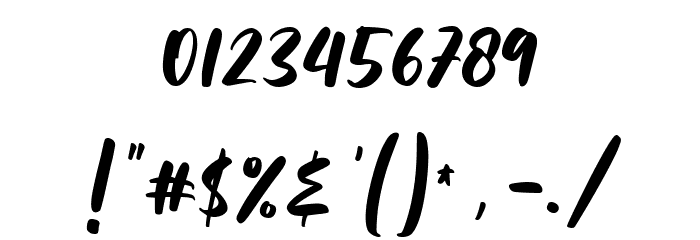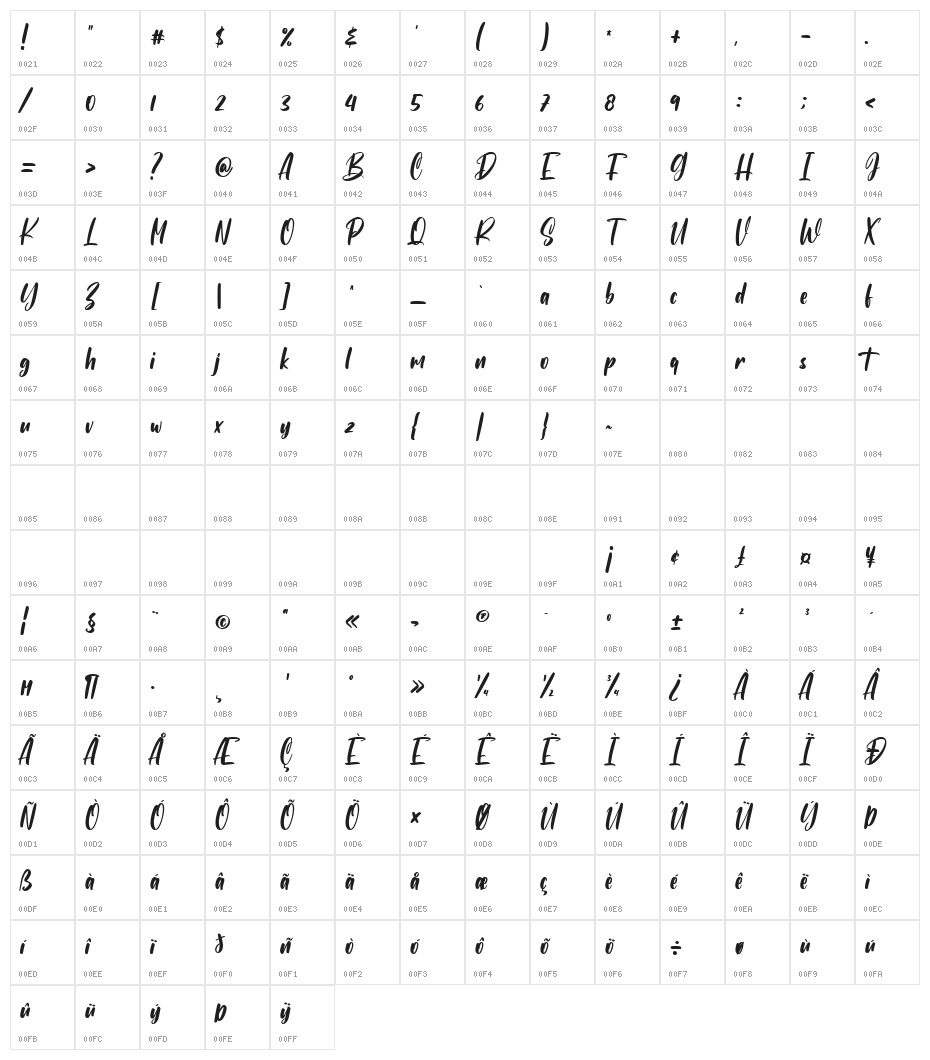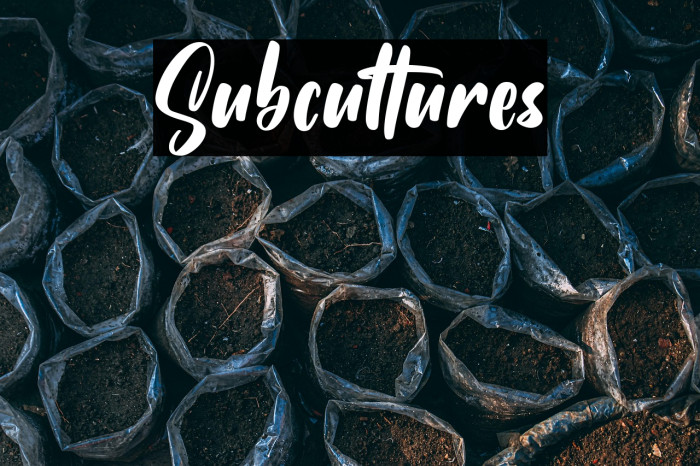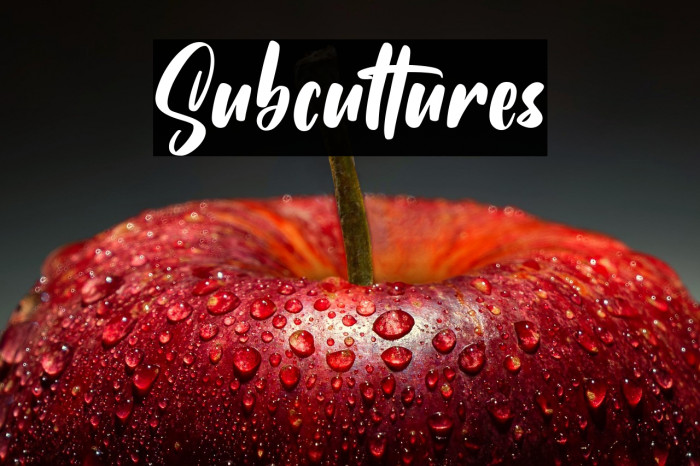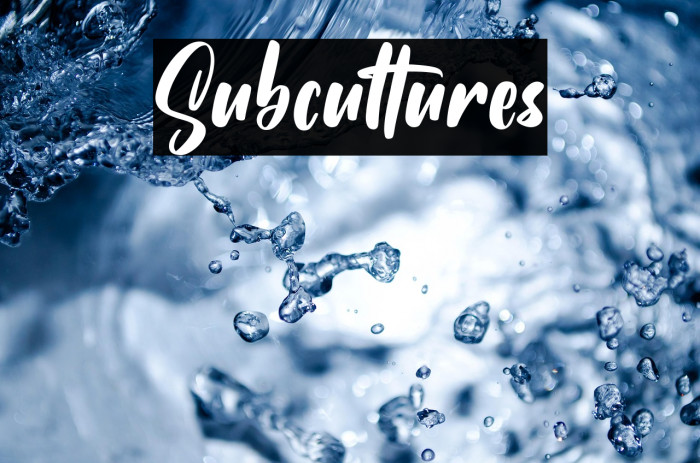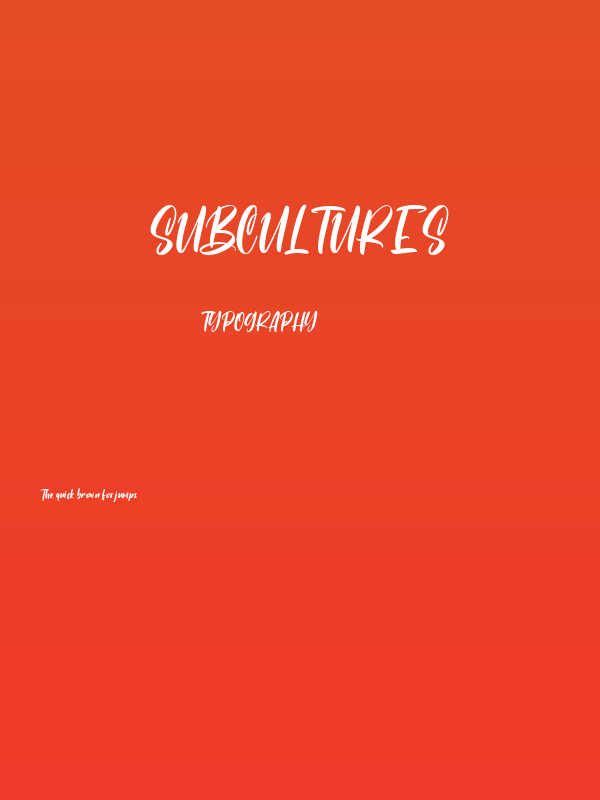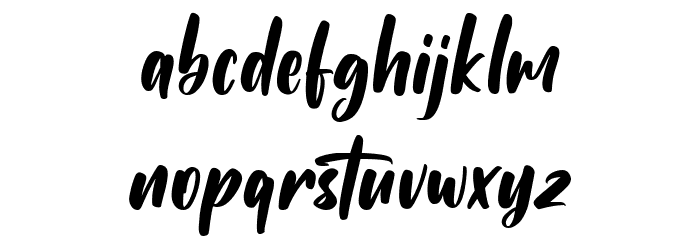
Subcultures Font
Subcultures Description
This font features a bold, expressive script style that exudes a sense of energy and movement. The characters are crafted with a flowing, handwritten appearance, characterized by smooth curves and varying stroke widths that add a dynamic feel. The uppercase letters are tall and slightly condensed, while the lowercase letters maintain a consistent rhythm, enhancing readability. The numerals and special characters are designed to match the lively aesthetic, making the font versatile for various creative applications. Its playful yet sophisticated look makes it ideal for projects that require a personal touch.